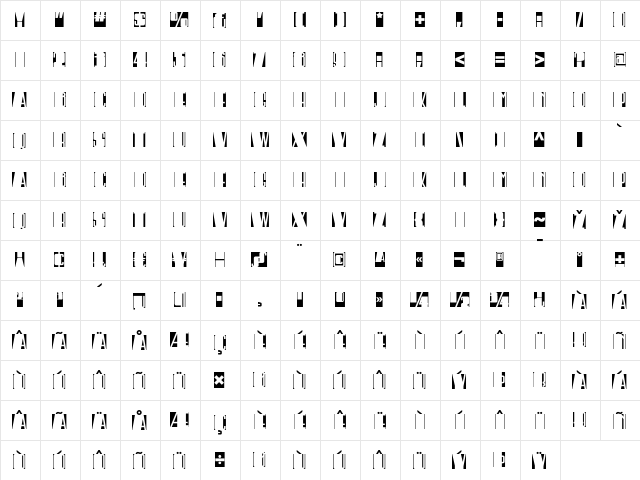
Escondido NF Regular
Design Context for Escondido NF Typeface
Escondido NF is a composed and adaptable typeface that performs quietly and consistently across a wide range of design contexts. Its narrow stance lets it pack a punch even in space-constrained designs.